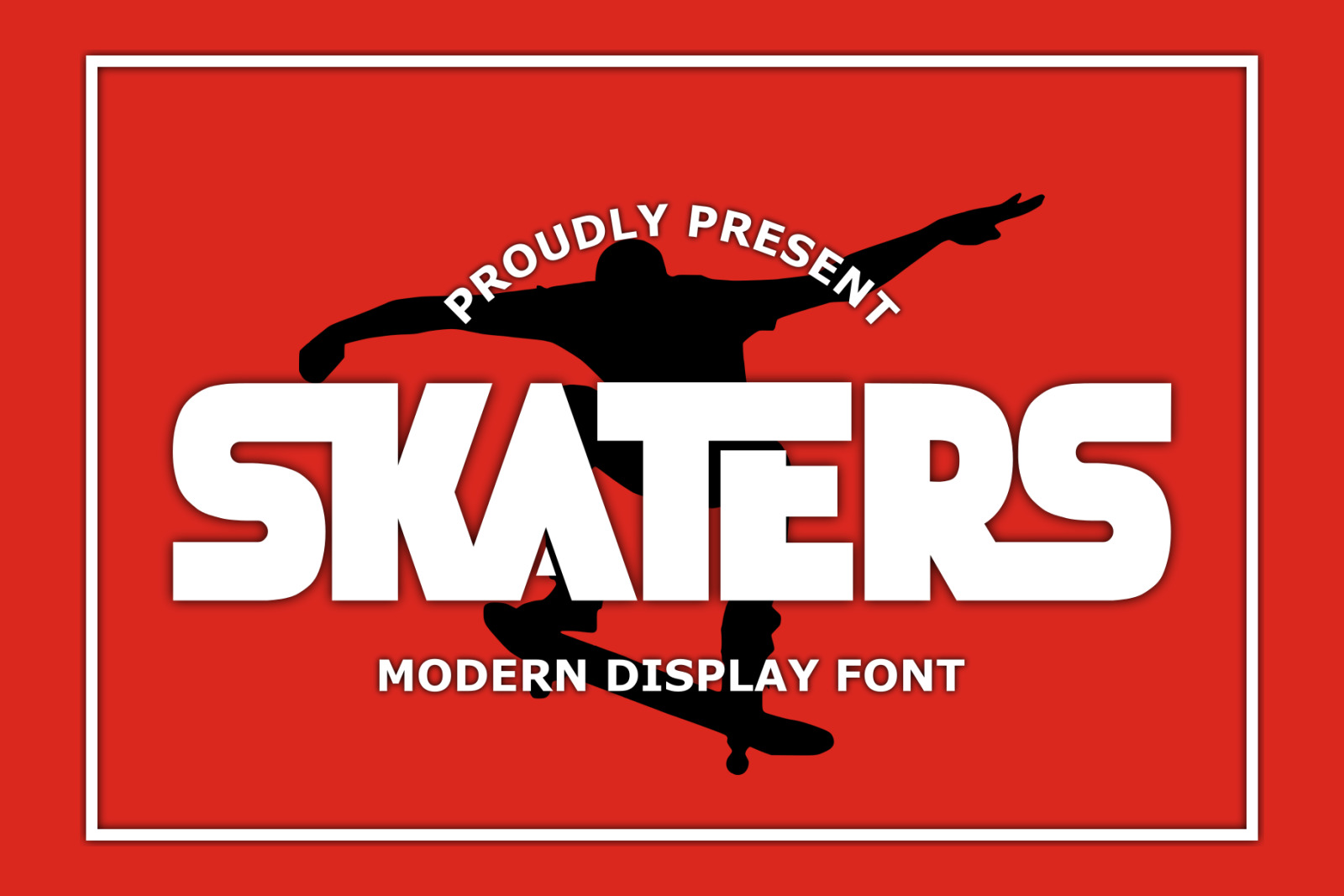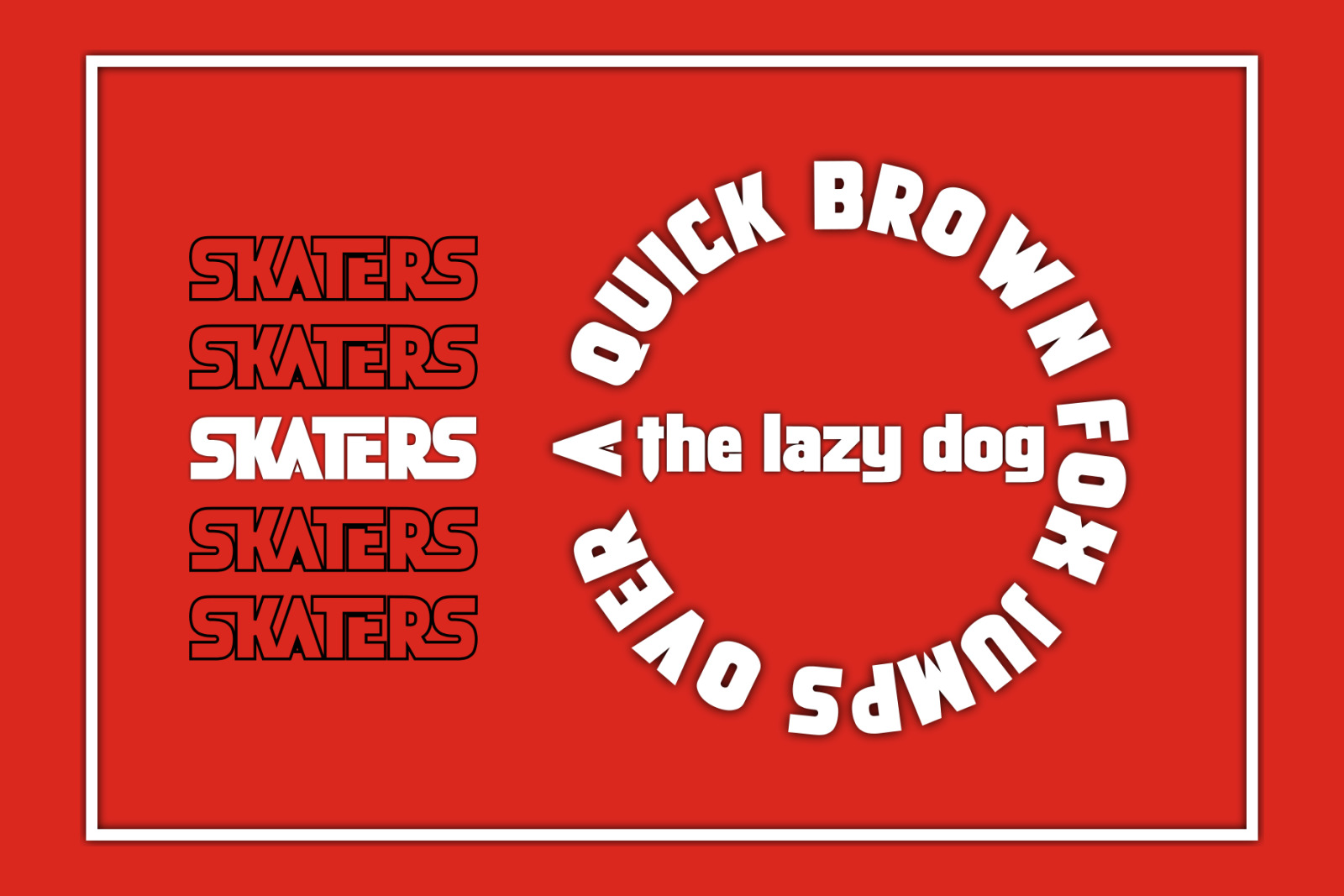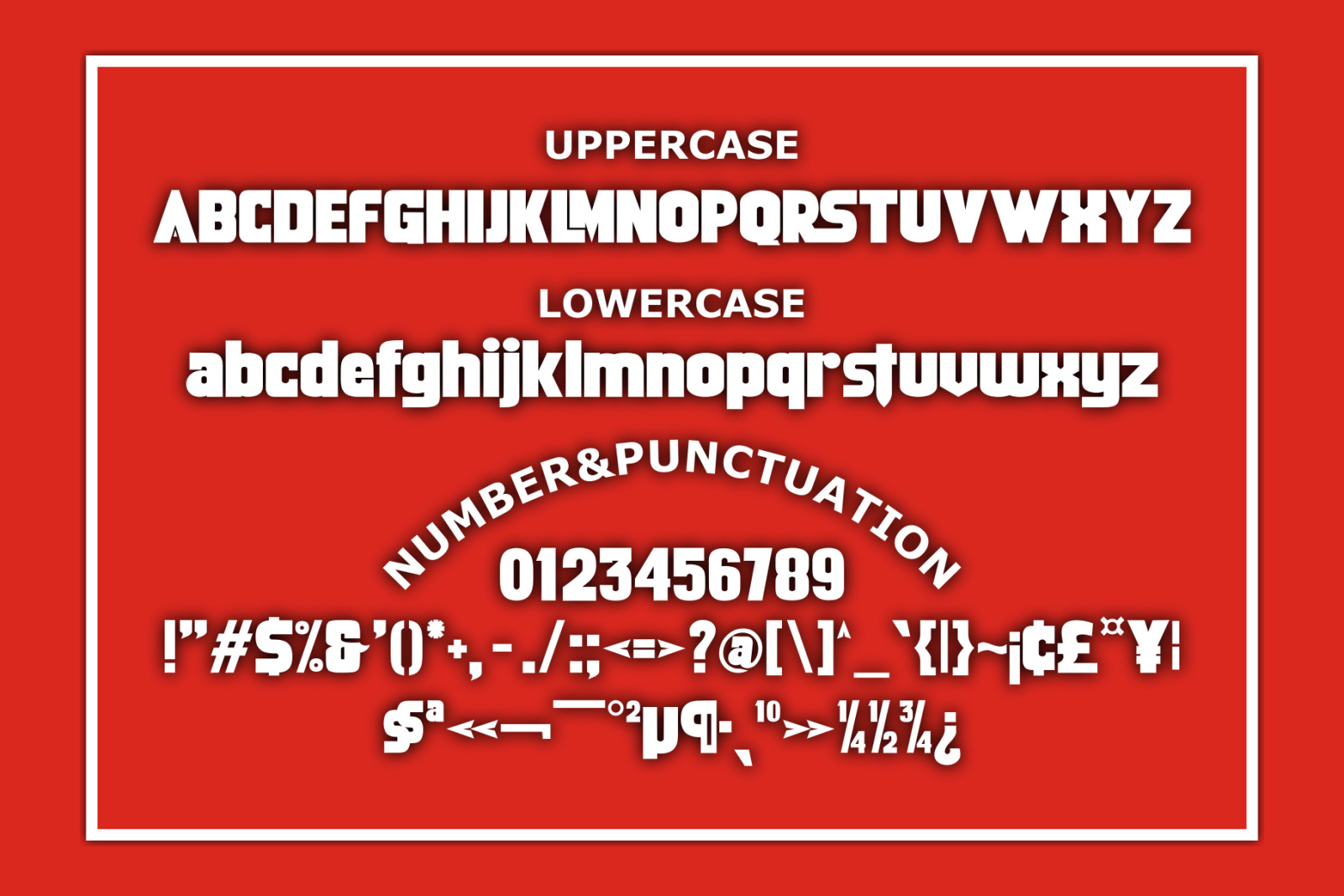
Skaters Font
Skaters is a simple and chunky lettered display font. Use it for each of your casual designs and notice how it makes them stand out!
That will look particularly adept when used in branding, branding projects, signboards, fashion magazines, wedding designs, social media posts, advertisements, product packaging, product designs, label, photography, watermark, invitation, stationery, and much more. It contains uppercase, lowercase, multilingual, numbers and symbols, punctuation & PUA encoded.